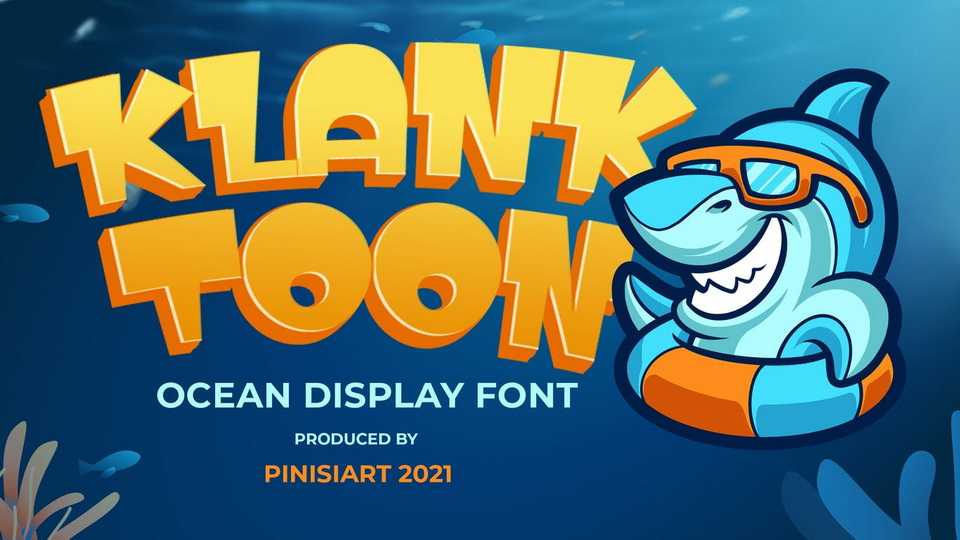
Download Klanktoon font, a cartoon typeface. Imagine diving in the ocean, and hearing a loud KLANK right by your side. It was the friendliest shark with that huge smile and his buddy octopus waving toward you.